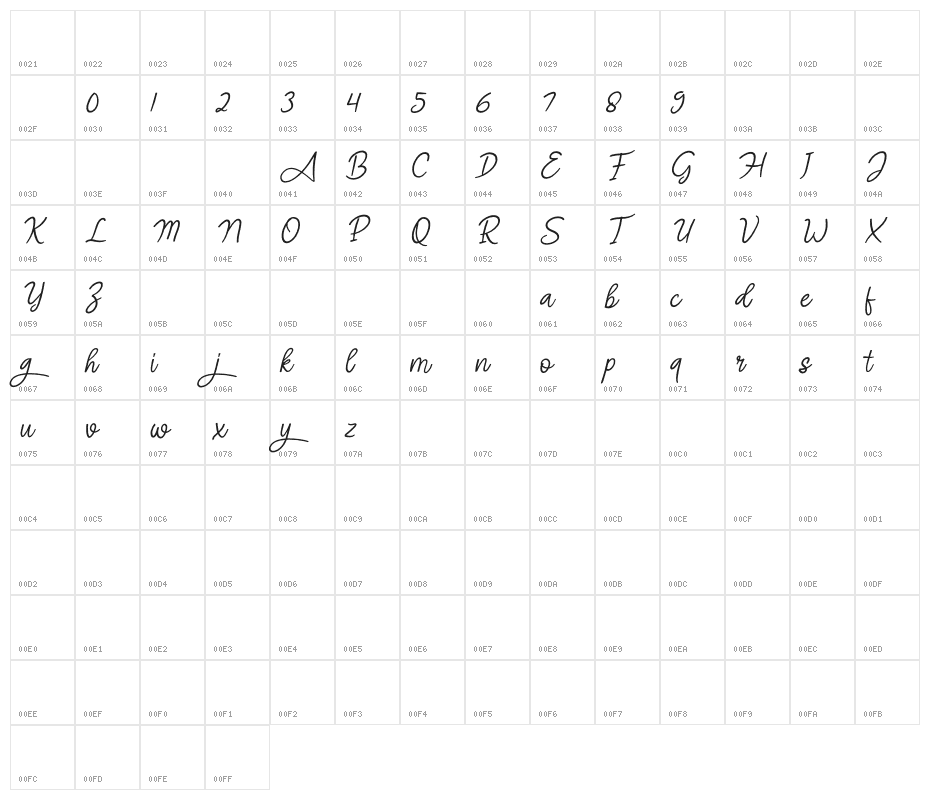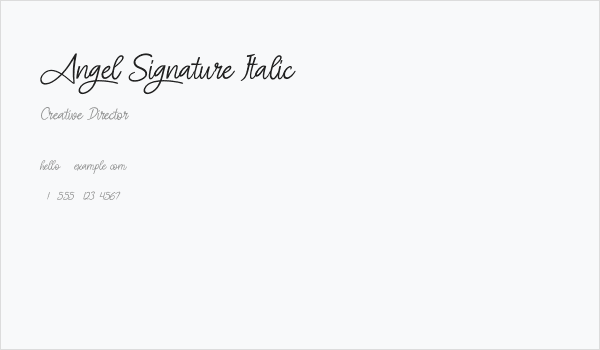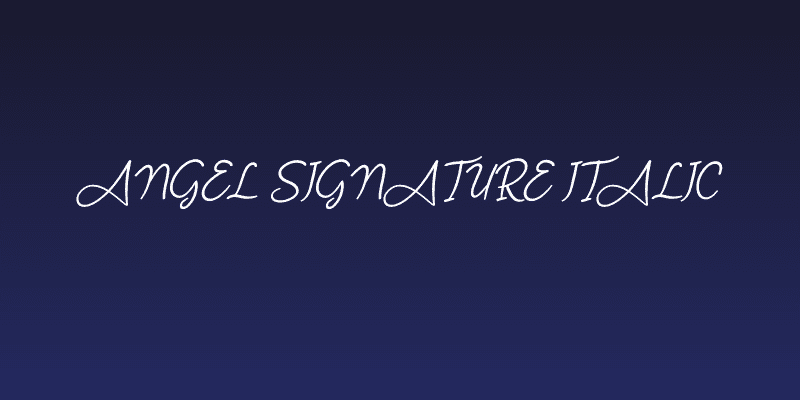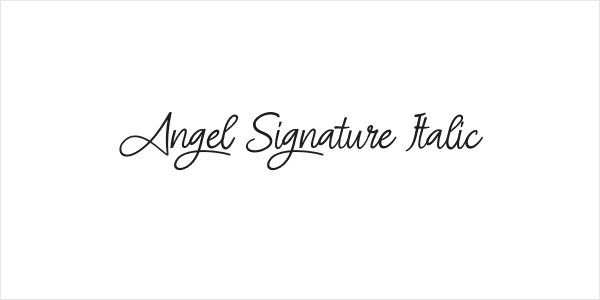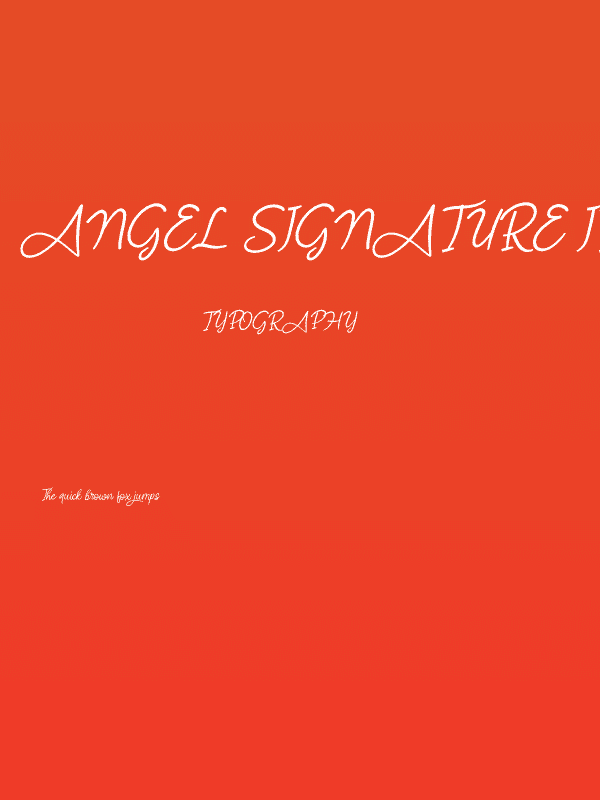
Angel Signature Italic Font
This elegant script font features a flowing, cursive style that mimics the fluidity of a handwritten signature. The letters are interconnected with smooth, sweeping strokes, giving it a sophisticated and graceful appearance. The uppercase letters are slightly more ornate, with flourishes that add a touch of flair, while the lowercase letters maintain a consistent rhythm and balance. The numerals are styled to match the overall aesthetic, ensuring a cohesive look. This font exudes a sense of personal touch and elegance, making it ideal for projects that require a refined and stylish presentation.
| Proposed Projects | Ideal for wedding invitations, personal branding, elegant stationery, and upscale product packaging. |